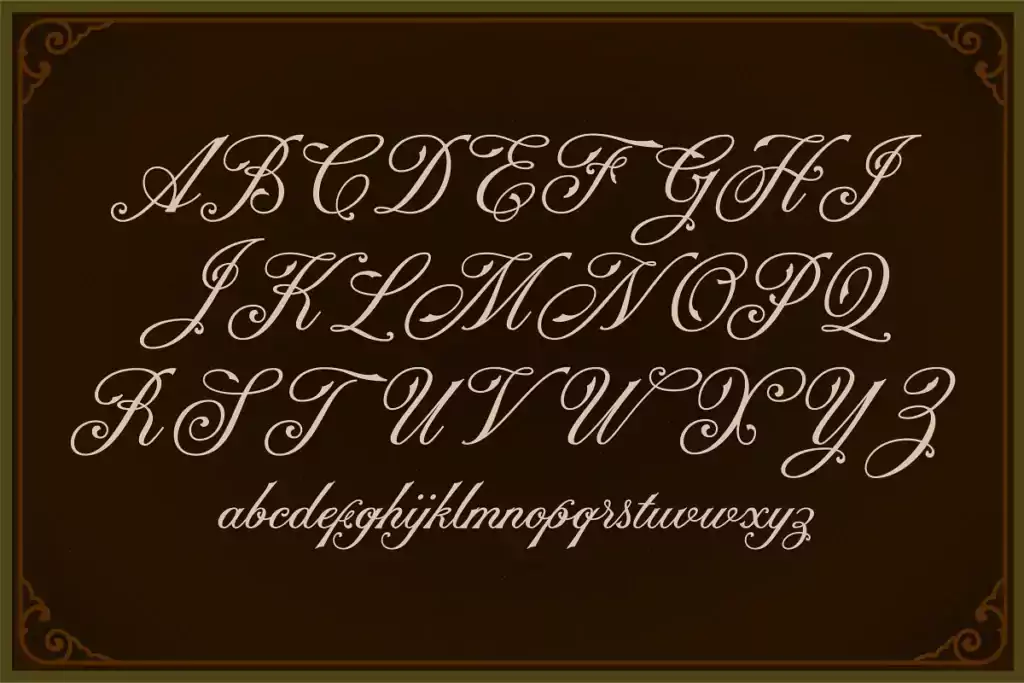
Champtone Script Font
Champtone Script Font is a fresh new calligraphy and script font. The aesthetics of Copperplate Script, Sign, and vintage style labels inspired this font. Extra swashes, decorative borders, panels, ligatures, and stylistic alternates are included in this Typeface. Novi Ananda created and published the font. On March 26, 2020, the font was made public.
The font is suitable for creating a design piece that is influenced by letterheads, posters, signage, charters, labels, packaging, logotypes, and other similar items. This font is ideal for all of your whimsical ideas. The font is ideal for retro designs of all kinds. This is going to be a favourite of any designer who enjoys old design. This font is also ideal for use on posters. Every poster will have an excellent sophisticated feel about it.